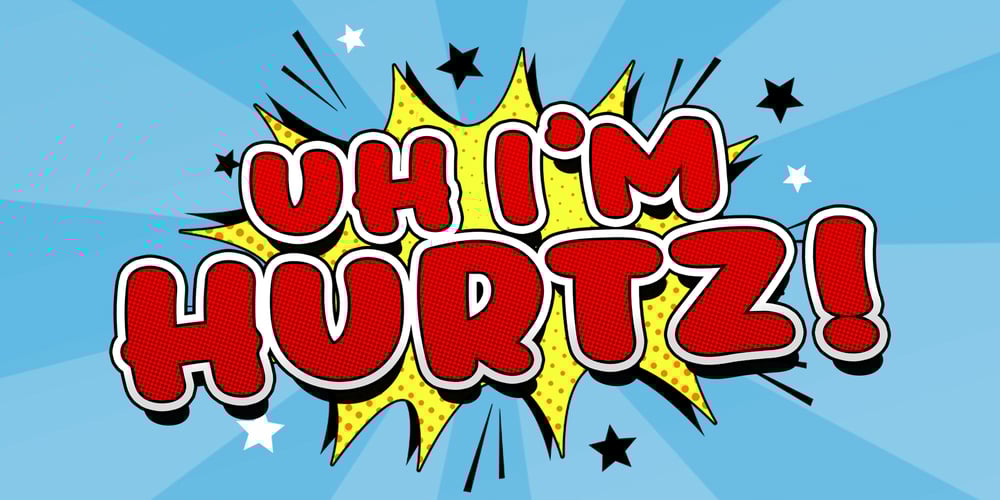
Hurtz
Hurtz font
Hurtz Font Family was designed by Stefie Justprince and published by Crumphand. Hurtz contains 2 styles and family package options. The new Comic Style Font is Called ” Hurtz ” Comic style make your design Pop up, Retro, Stand out.Perfect Reading, Good Readability.What’s Included ? Uppercase Lowercase Symbols Numerals Multilingual Support : Afrikaans, Albanian, Asu, Basque, Bemba, Bena, Breton, Catalan, Chiga, Colognian, Cornish, Czech, Danish, Dutch, Embu, English, Esperanto, Estonian, Faroese, Filipino, Finnish, French, Friulian, Galician, German, Gusii, Hungarian, Indonesian, Irish, Italian, Kabuverdianu, Kalenjin, Kamba, Kikuyu, Kinyarwanda, Latvian, Lithuanian, Lower, Sorbian, Luo, Luxembourgish, Luyia, Machame, Makhuwa-Meetto, Makonde, Malagasy, Manx, Meru, Morisyen, North, Ndebele, Norwegian, Bokmål, Norwegian, Nynorsk, Nyankole, Oromo, Polish, Portuguese, Quechua, Romansh, Rombo, Rundi, Rwa, Samburu, Sango, Sangu, Scottish, Gaelic, Sena, Shambala, Shona, Slovak, Soga, Somali, Spanish, Swahili, Swedish, Swiss, German, Taita, Teso, Turkish, Upper, Sorbian, Uzbek (Latin), Volapük, Vunjo, Walser, Welsh, Western, Frisian, Zulu.